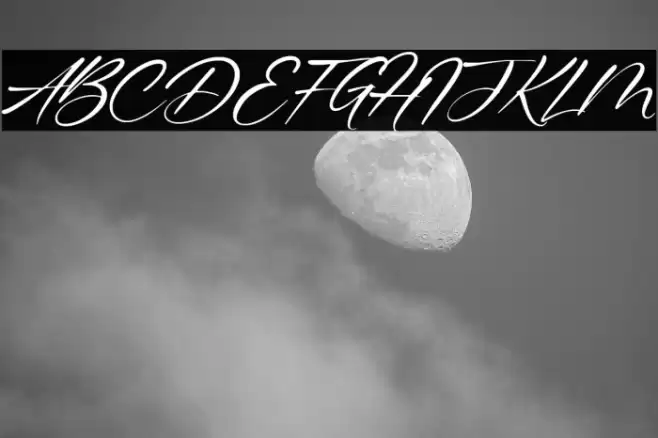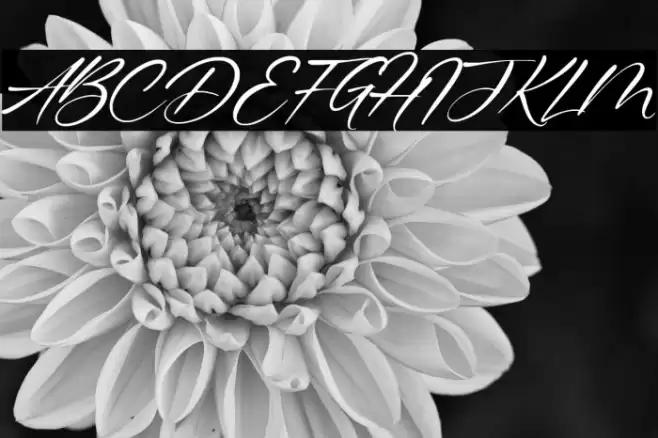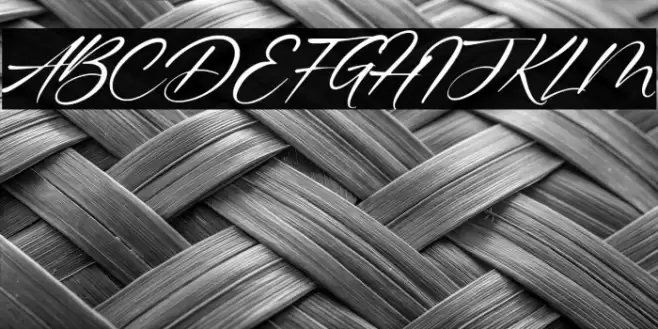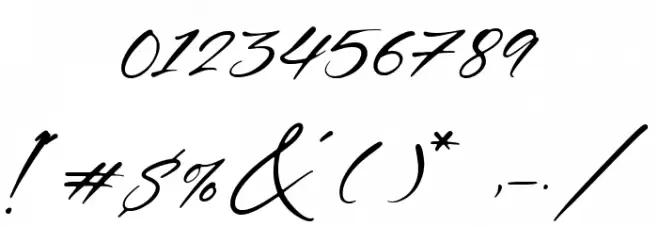
Gustavo Eastwood Font
Gustavo Eastwood Description
This elegant script font features a flowing, cursive style with a sophisticated flair. The characters are interconnected, creating a seamless and fluid appearance. The uppercase letters are bold and sweeping, with dramatic flourishes that add a touch of grandeur. The lowercase letters maintain a consistent rhythm, with gentle curves and loops that enhance readability. Numbers and special characters are designed with the same attention to detail, ensuring a cohesive look across all elements. The font's high contrast between thick and thin strokes adds to its dynamic and expressive nature, making it ideal for projects that require a touch of elegance and sophistication.
A flowing, elegant script font with high contrast and dramatic flourishes from Uncategorized fonts.
- Font: Gustavo Eastwood
- Proposed Projects: Ideal for wedding invitations, elegant branding, luxury product packaging, and sophisticated event posters.
- Character Spacing: Tight
- Overall Style: Elegant
- Use Case: Logos, Invitations, Branding